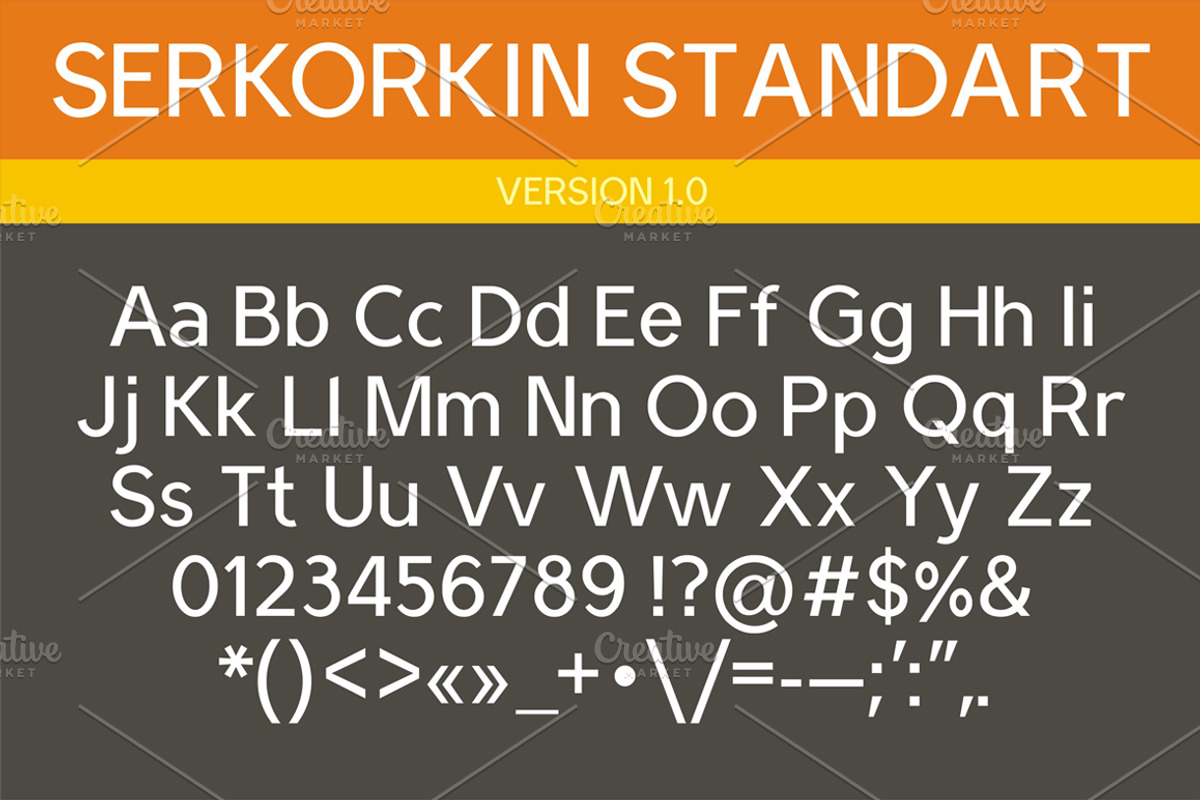
Serkorkin Standart Font
Serkorkin Standart Font by serkorkin is a font selected for branding, posters, packaging, typography.
Why Serkorkin Standart Font is worth a look
Serkorkin Standart Font by serkorkin fits naturally into Branding, posters, packaging, typography.